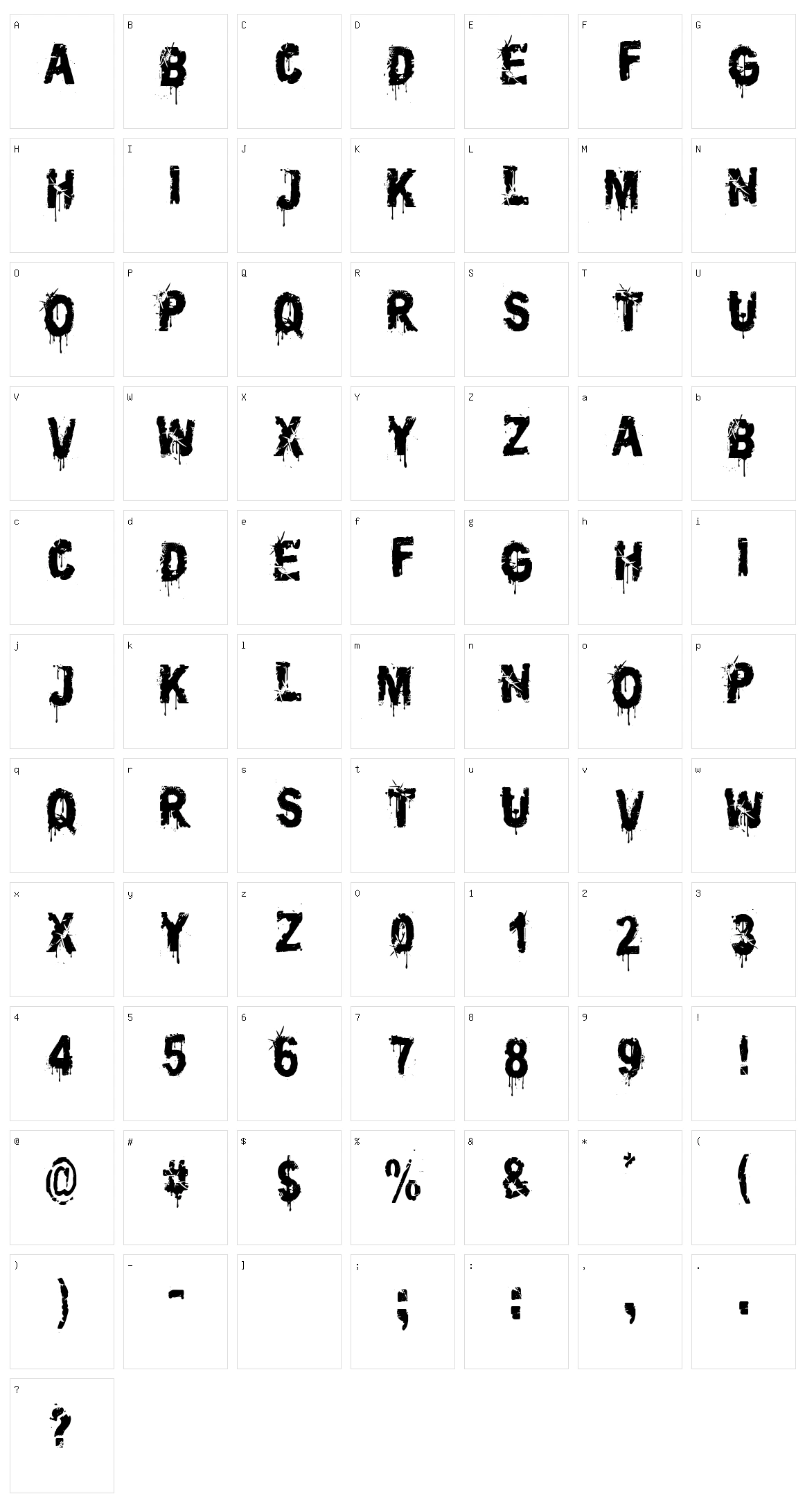
The free font CF Politicians Killers is carefully designed by Cloutierfontes, showcasing a thoughtful balance of creativity and usability and falls under the Horror font style. When you download the ZIP file, it contains only 115.54 KB of font files, making it lightweight and quick to download. Please review the license details below to understand permitted usage and distribution rights. If license information is not available, we recommend using this font for personal projects only or contacting the author directly for commercial usage permissions.